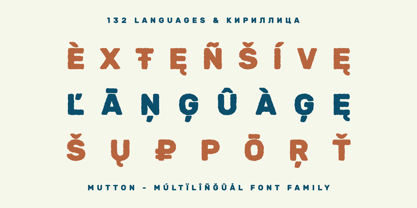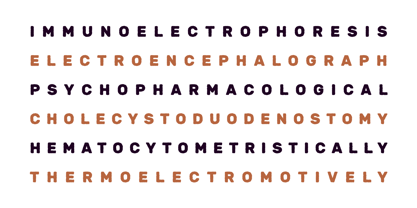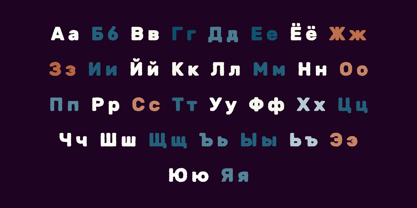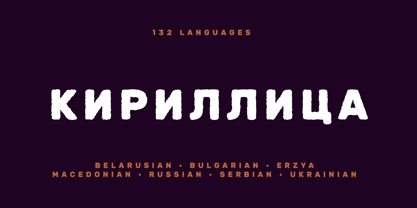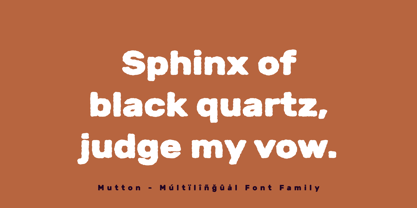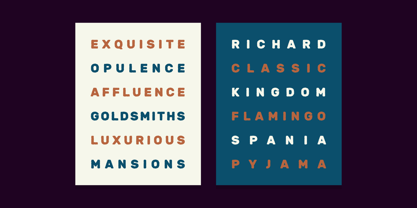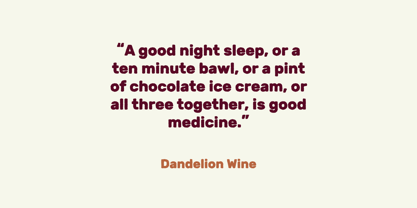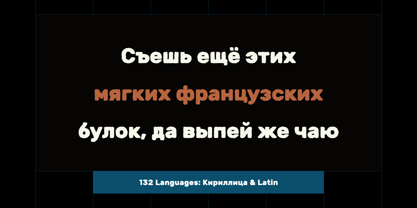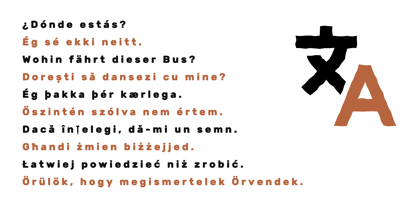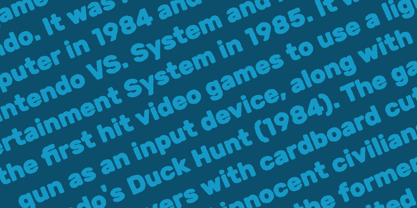
Mutton
by AlperCakici
The Mutton Font Family was designed by Alper Çakıcı and published by AlperCakici. Mutton contains 20 styles and family package options. More about this family
Mutton is a distinctive, handwritten sans serif typeface characterized by its expressive texture and natural movement. The organic strokes and imperfect edges provide designs with an authentic, human touch while ensuring excellent legibility. With 20 versatile styles — including Angular, Brush, Chalk, Eroded, Graphite, Liner, Pencil, Rough, Wax, Regular, and their Italics — Mutton seamlessly transitions from bold headlines to intricate branding systems. This typeface is ideal for a variety of applications such as posters, packaging, logos, editorial layouts, social media graphics, album covers, merchandise, and creative branding projects that require warmth and personality. Mutton supports an extensive Latin-based language set, along with Cyrillic, making it suitable for a wide range of European and international languages. This versatility makes it a powerful choice for global branding and multilingual design work. If you’re in search of a textured sans serif that combines a handcrafted feel with flexibility, Mutton offers character, versatility, and a creative edge in every style.
Designers: Alper Çakıcı
Foundry: AlperCakici